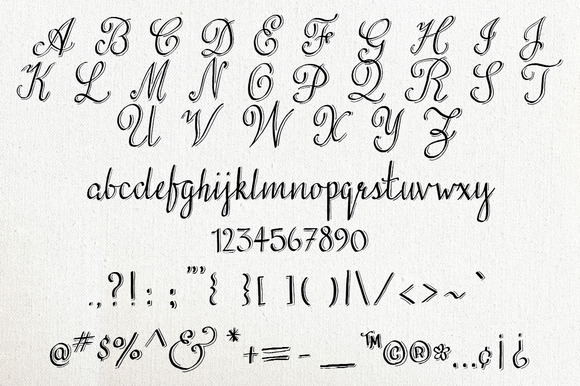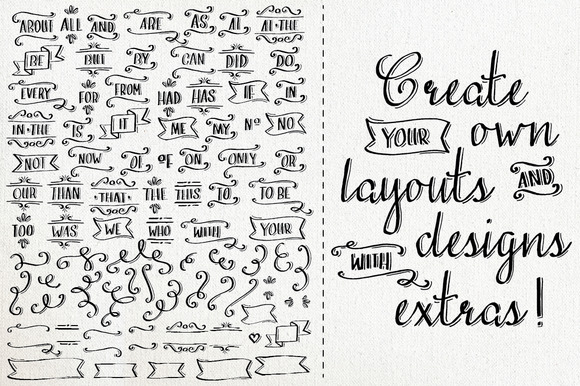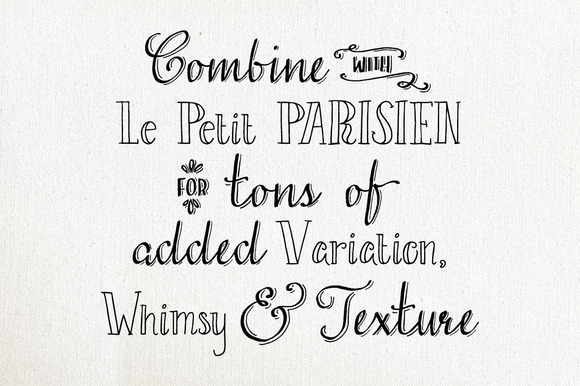
Introduction to Love & Stuff Pack Font
Do you remember the moment when you decided to create a special invitation for your best friend’s wedding? The excitement, the creativity, and the desire to make it truly unforgettable? For many designers, this is a common scenario that sparks their imagination and sets them on a journey to create something truly special. And that’s where the Love & Stuff Pack Font comes in – a beautiful, elegant handwriting font that adds a touch of sophistication to any design project.
This font is more than just a simple font; it’s a design resource that can elevate your creative projects to the next level. With its high-quality, transparent background, and vintage 3D effect, Love & Stuff Pack Font is perfect for creating beautiful wedding invitations, thank you cards, and other special occasion designs. And the best part? It’s available for free download, making it an invaluable addition to any designer’s toolkit.
Whether you’re a professional designer or a creative enthusiast, the Love & Stuff Pack Font is a valuable asset that can help you create stunning designs with ease. In this article, we’ll take a closer look at this amazing font and explore its features, benefits, and uses in various design applications.
Key Features of Love & Stuff Pack Font
- High-quality, free download font for creative projects, ideal for designers and artists.
- Includes a range of unique, hand-drawn characters and symbols with a transparent background, perfect for layering and customization.
- Features a large character set with over 1000 glyphs, ensuring comprehensive support for various languages and scripts.
Honest Review: Love & Stuff Pack Font
I recently stumbled upon the Love & Stuff Pack Font and decided to give it a try for my current creative project. I must say, I was quite impressed with the quality and versatility of this free download. As a designer, I appreciate high-quality design resources that can elevate my work, and this font definitely fits the bill.
What works well about this font is its high quality and consistency across various weights and styles. It’s perfect for creating a cohesive visual identity for my project, and I love the fact that it’s available for free download. This makes it an excellent addition to any design library, especially for those on a budget.
- ✨ High-quality font with a wide range of weights and styles
- ✨ Transparent background for easy editing and customization
However, I did encounter some limitations with this font. For instance, ⚠️ it may not be suitable for extremely large-scale designs, as the file size can become quite large. Additionally, some users may find the font to be a bit ⚠️ overused in certain contexts, which can detract from its overall impact.
Overall, I’m quite pleased with the Love & Stuff Pack Font and would definitely recommend it to fellow designers looking for a high-quality, free design resource. With its versatility and ease of use, it’s an excellent addition to any creative project.
Introduction to Love & Stuff Pack Font
The Love & Stuff Pack Font is a free download of a high-quality design resource perfect for any creative project. This versatile font is ideal for a wide range of applications and can be used to add a touch of personality to your work.
Tips for Getting the Most Out of Love & Stuff Pack Font
Experiment with different font sizes, colors, and combinations to get the most out of the Love & Stuff Pack Font. You can also use it to create custom graphics and illustrations that add a personal touch to your designs.
The Love & Stuff Pack Font is designed to be highly customizable. You can adjust the font’s size, color, and style to fit your creative vision. Additionally, the font’s transparent background makes it easy to layer and combine with other design elements.
Q: Is the Love & Stuff Pack Font suitable for use on a transparent background?
Yes, the Love & Stuff Pack Font is designed with a transparent background, making it perfect for use on logos, icons, and other design elements where a clear background is required.